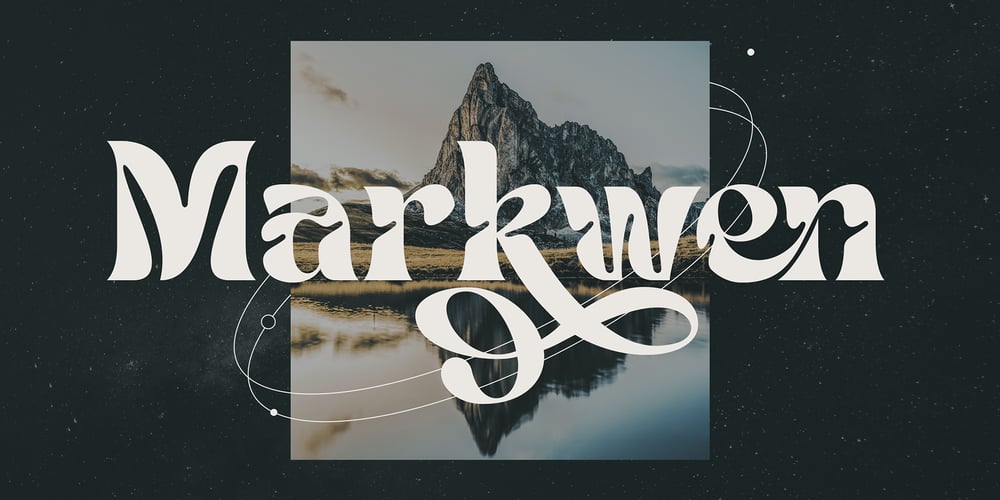
Markwen Font Family was designed by Peter Olexa and published by Deeezy. Markwen contains 1 styles and family package options. Trendy, bold, elegant, artistic & modern style serif font for your fancy projects. Elegant, fashion and decorative style on Markwen font will be great for any branding project. Lot of alternates and ligatures will help you to create unique and original logo design or website header! Enjoy ๐ Multilingual support Lot of alternate characters Lot of ligatures Web font Great for modern branding projects!